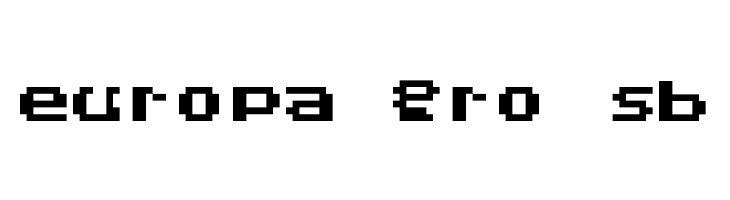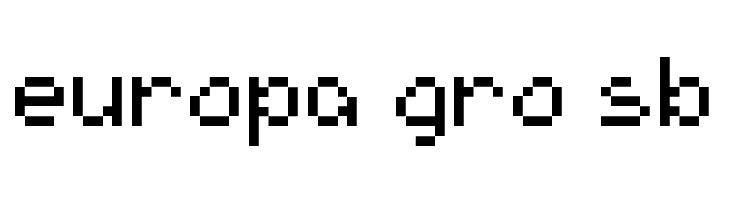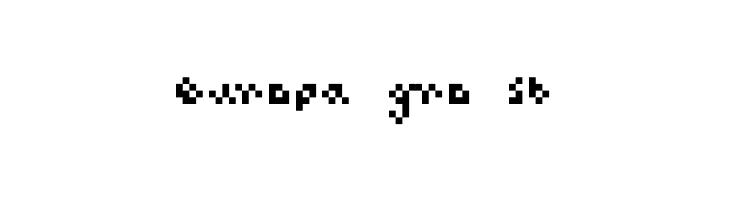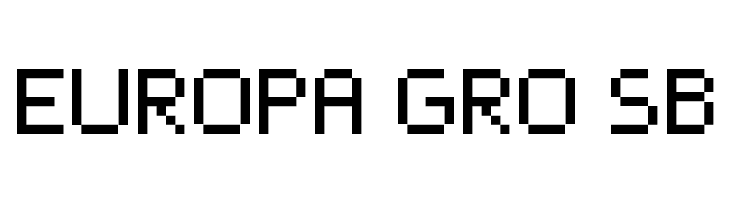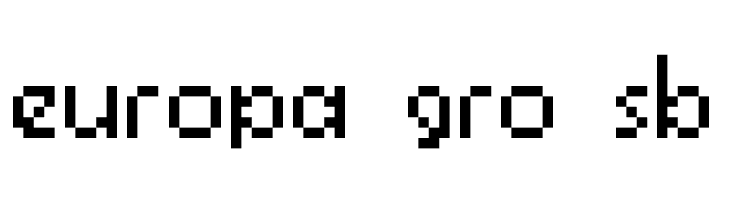
( Caveras - Cliff Modes - caveras.net )
A pixelated, retro-style font with a blocky, 8-bit design.
( Caveras - Cliff Modes - caveras.net )
A pixelated, monospaced font with a retro digital aesthetic.
( Chequered Ink - chequered.ink/ )
A pixelated, retro-style font inspired by early digital displays.
( Ciaran Crawley - ciarancrawley.com )
A pixelated, retro font inspired by early digital and arcade aesthetics.
( Daniel Petrino - dpetrino.com/ )
A pixelated, retro-style font inspired by early digital graphics.
( Daymarius - www.creativefabrica.com/designer/Daymarius )
A pixelated, retro-style font inspired by early digital displays.
( Daymarius - www.creativefabrica.com/designer/Daymarius )
A pixelated, retro-style font inspired by early digital displays.
( Hazel Abbiati - diamondidiocy.tumblr.com )
A pixelated, retro-style font with a blocky, digital appearance.
( Hazel Abbiati - diamondidiocy.tumblr.com )
A pixelated, retro-style font with a digital, fragmented appearance.
( Hazel Abbiati - diamondidiocy.tumblr.com )
A pixelated, retro-style font with a blocky, 8-bit aesthetic.